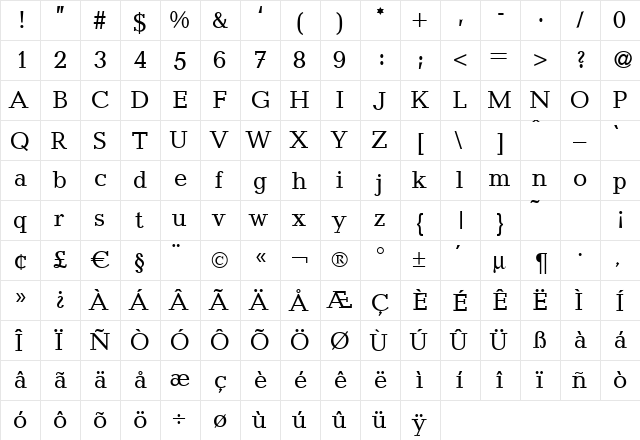
Quantity Regular Font Preview
Quantity Regular
Design Context for Quantity Typeface
Quantity takes a measured approach to typography — its balanced proportions and neutral character make it a reliable workhorse for both digital and print work.